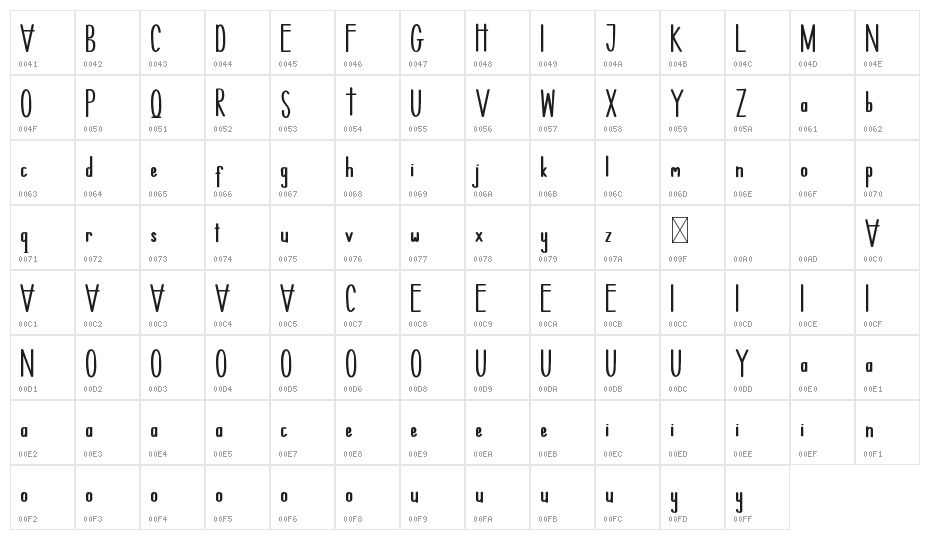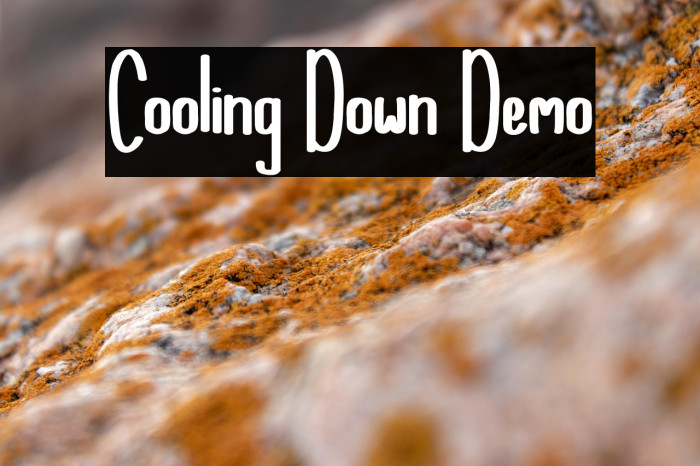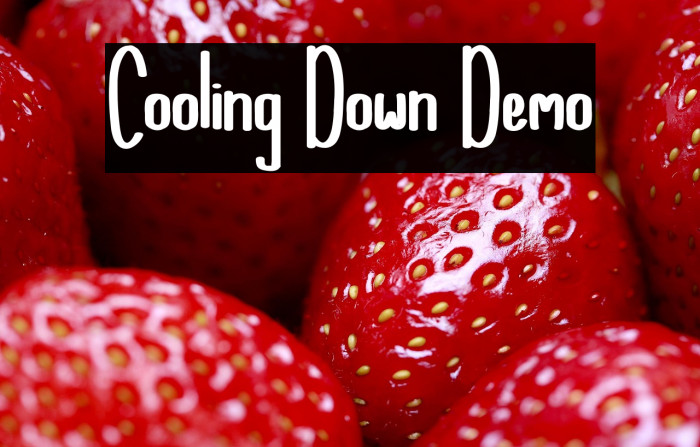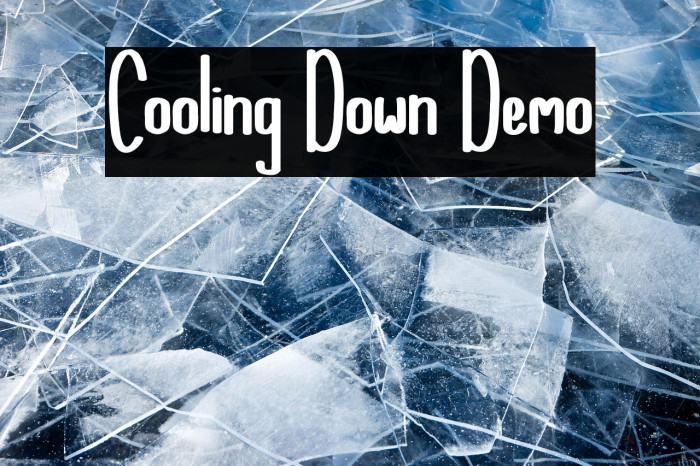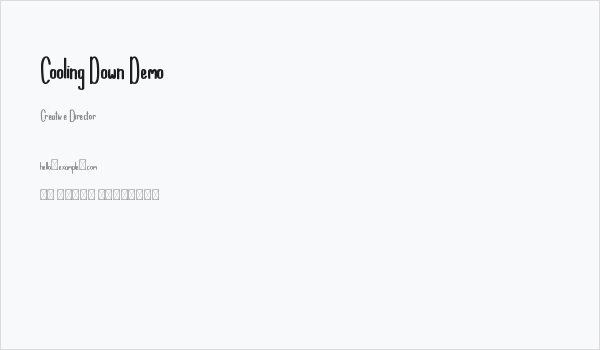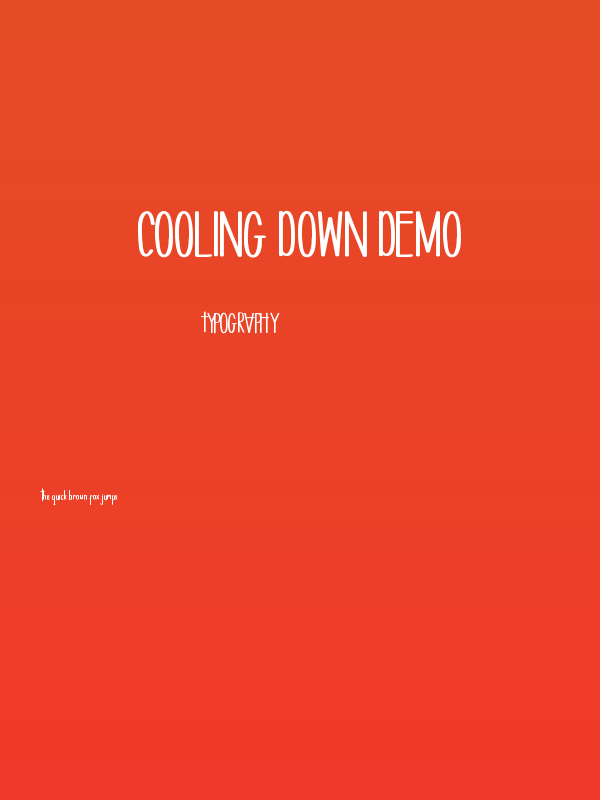
Cooling Down Demo Font
Cooling Down Demo Description
This font features a playful and modern design, characterized by its tall, narrow letters with a slight slant. The uppercase letters are bold and prominent, while the lowercase letters maintain a consistent height, offering a cohesive look. The strokes are smooth and rounded, giving the font a friendly and approachable feel. The spacing between characters is relatively tight, which enhances its compact appearance. This font is versatile and can be used in various design projects that require a touch of modernity and fun.